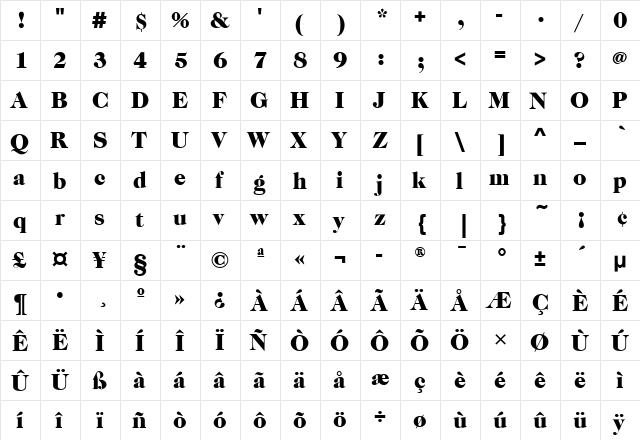
CaslonTwoTweFourMdITC Black
Design Context for CaslonTwoTweFourMdITC Typeface
CaslonTwoTweFourMdITC is a composed and adaptable typeface that performs quietly and consistently across a wide range of design contexts.